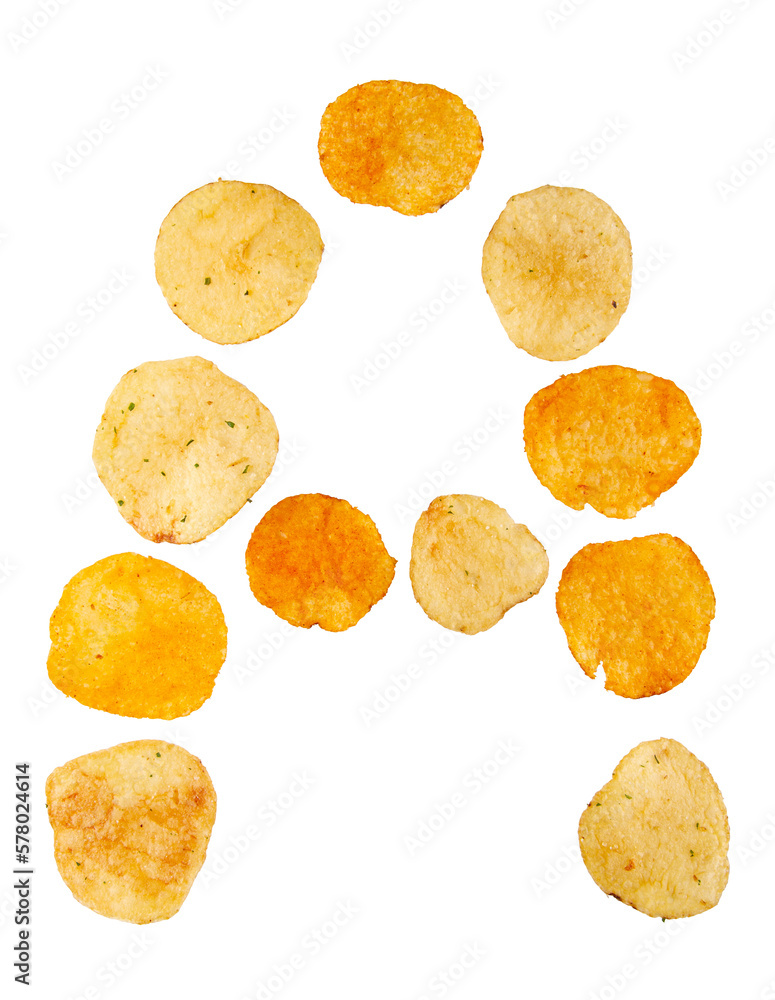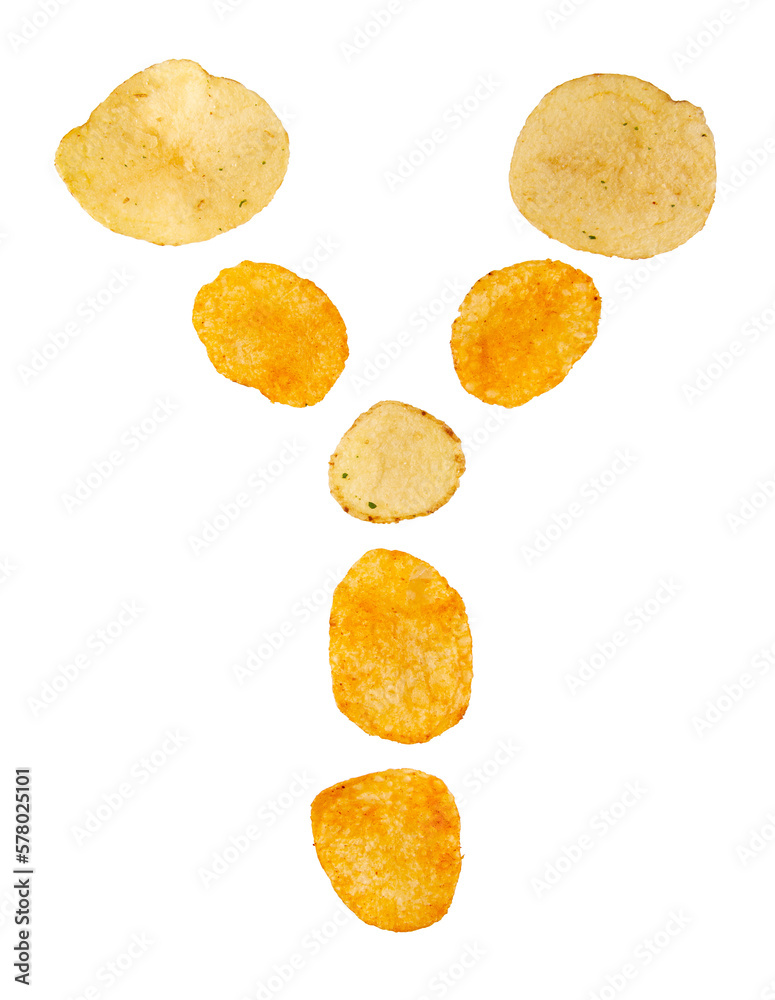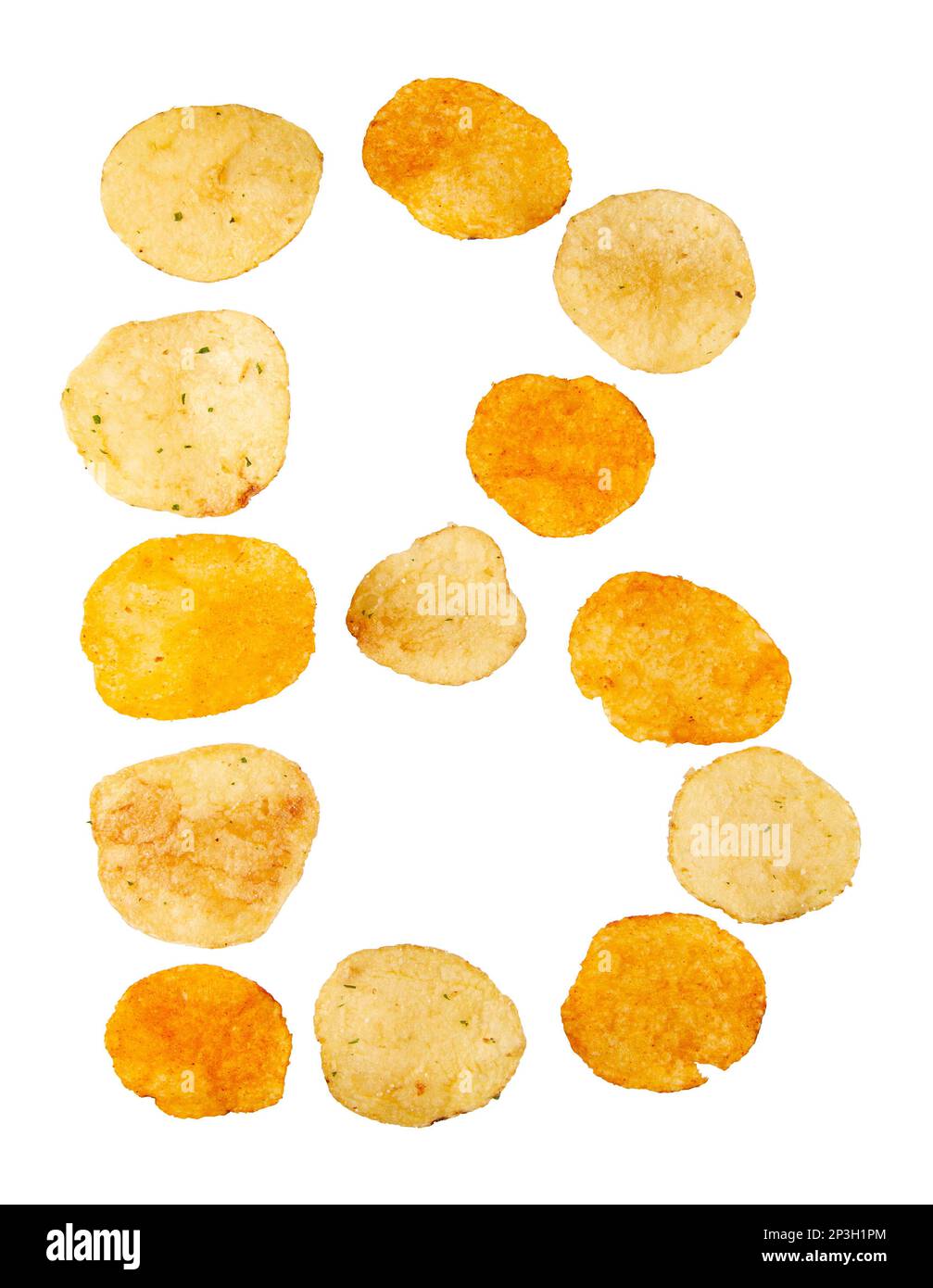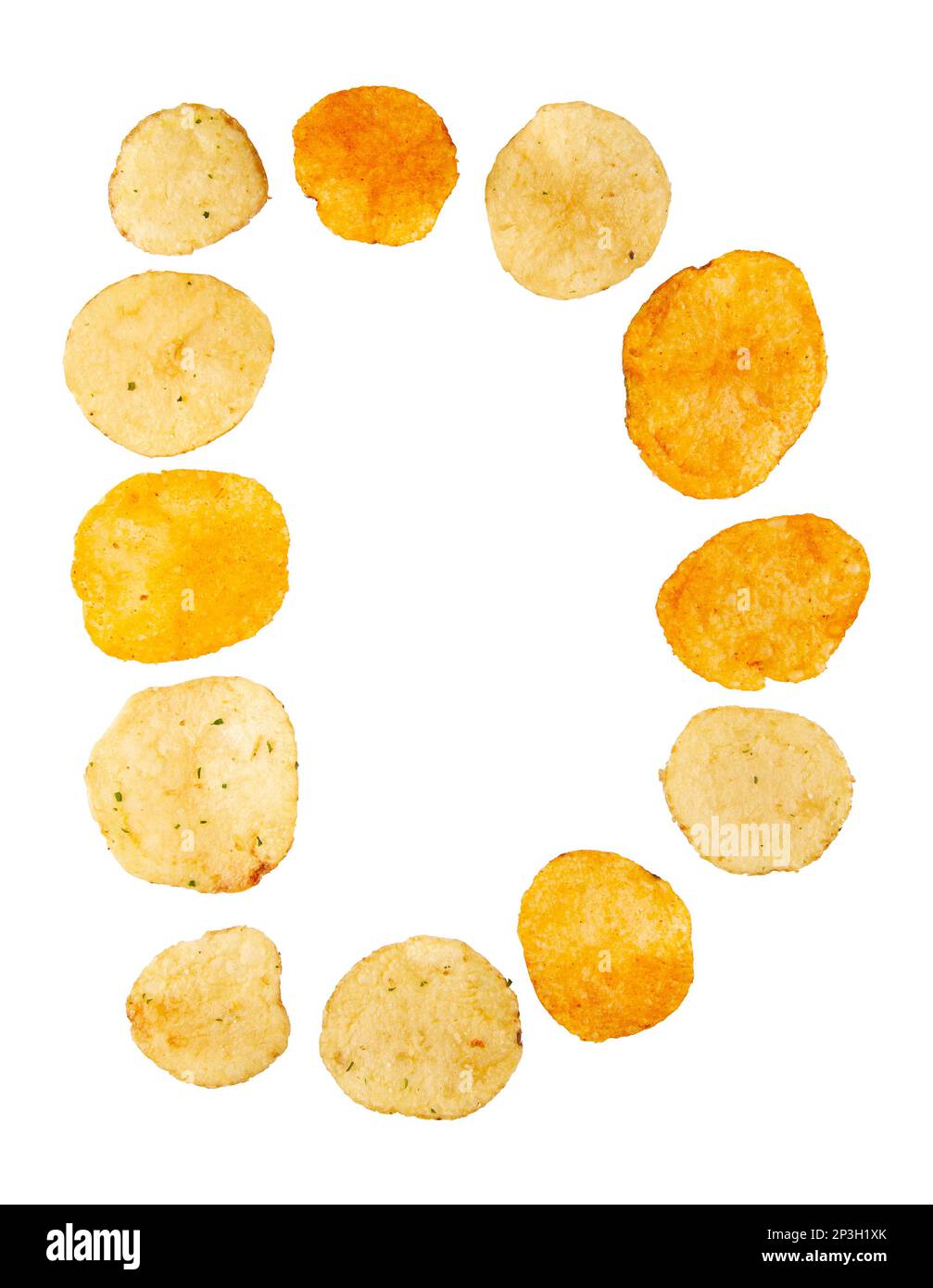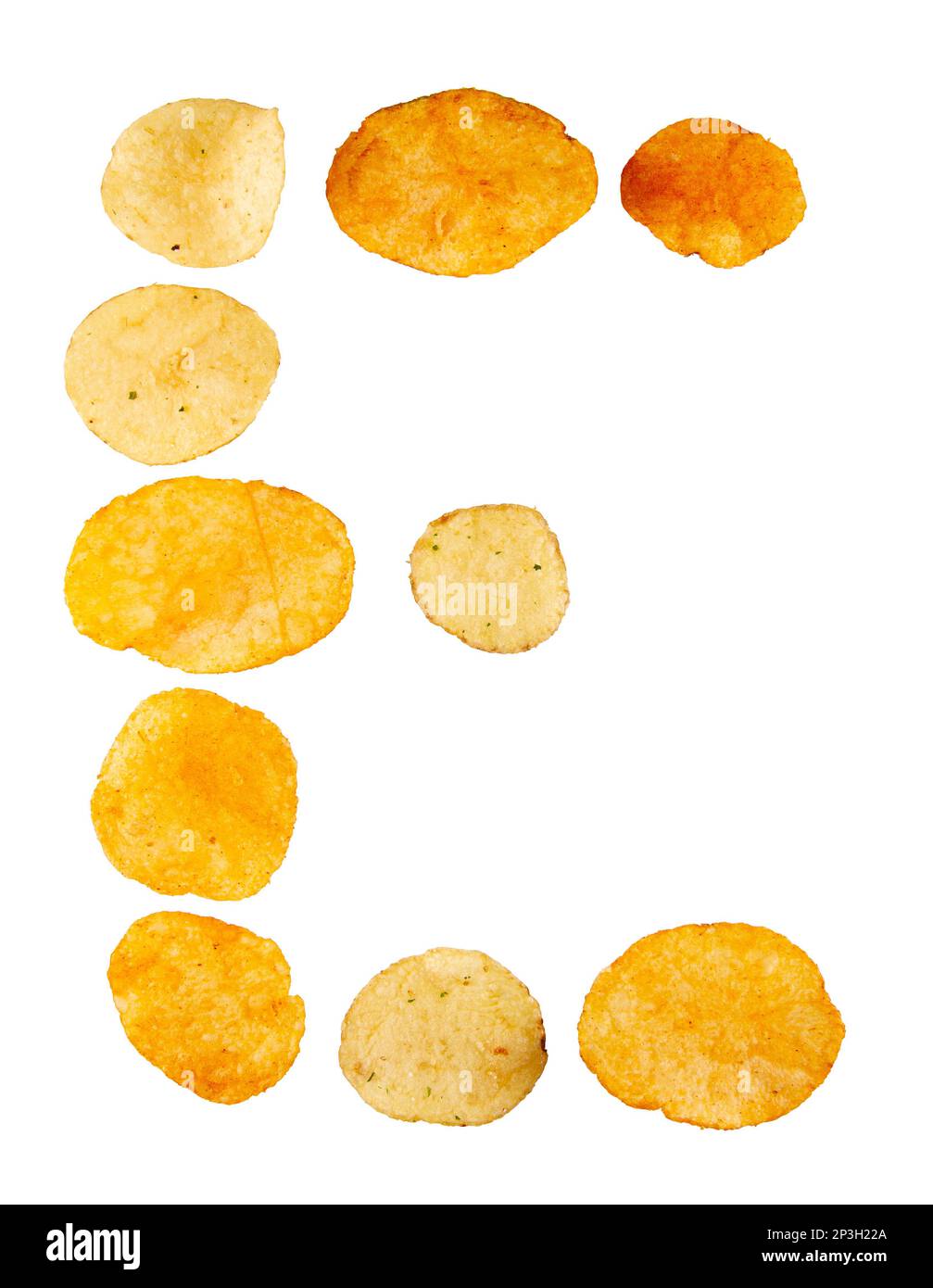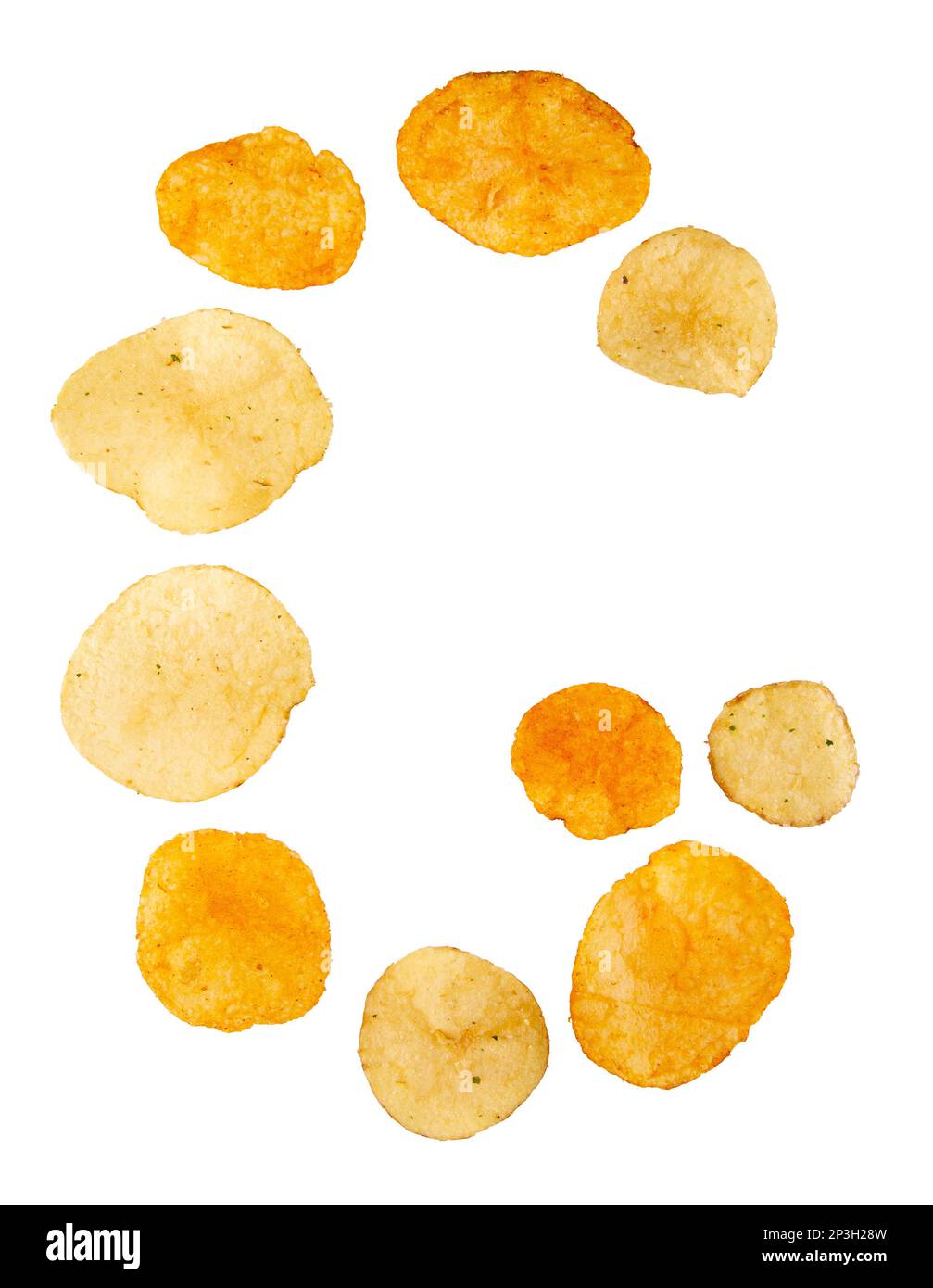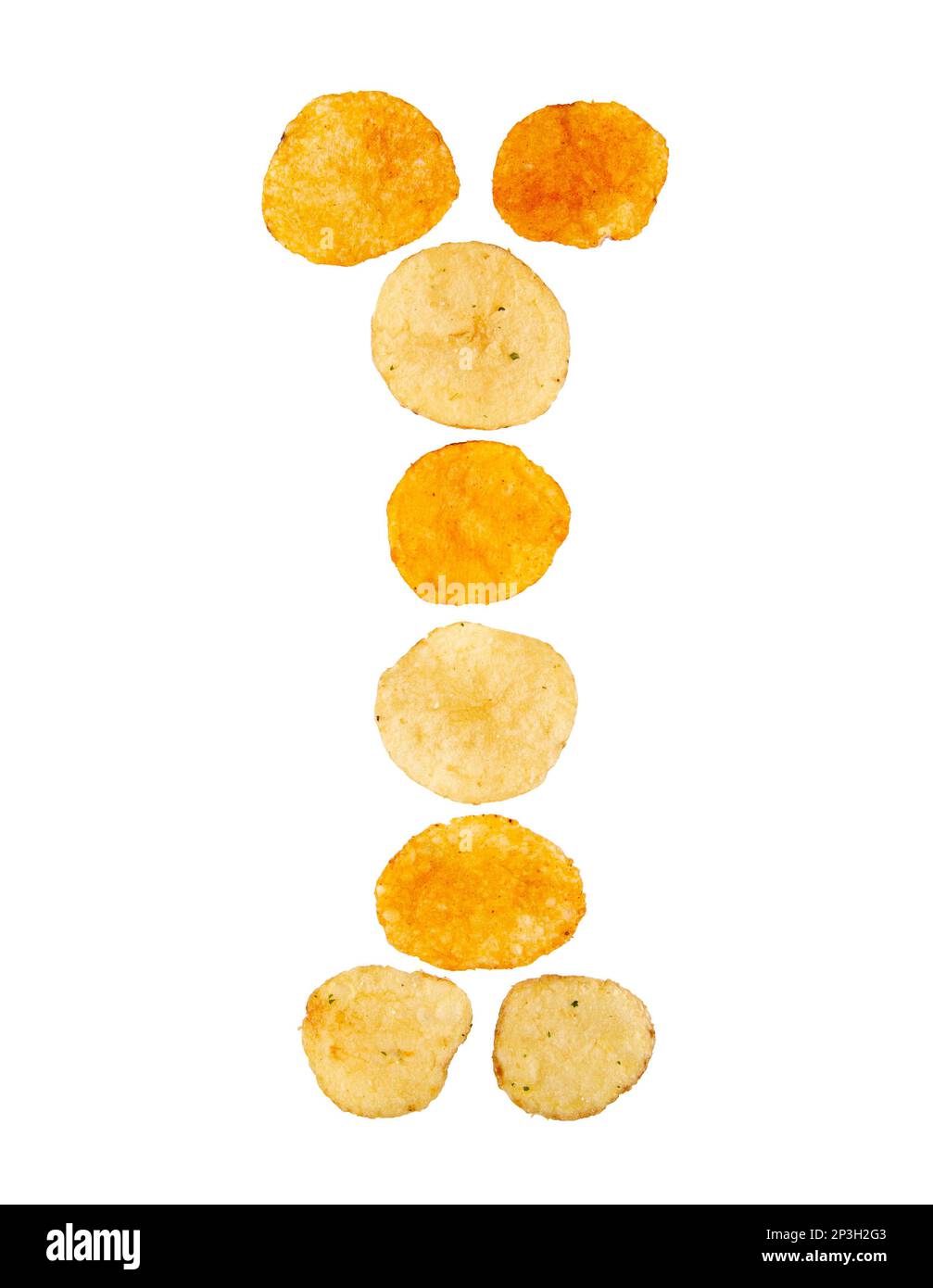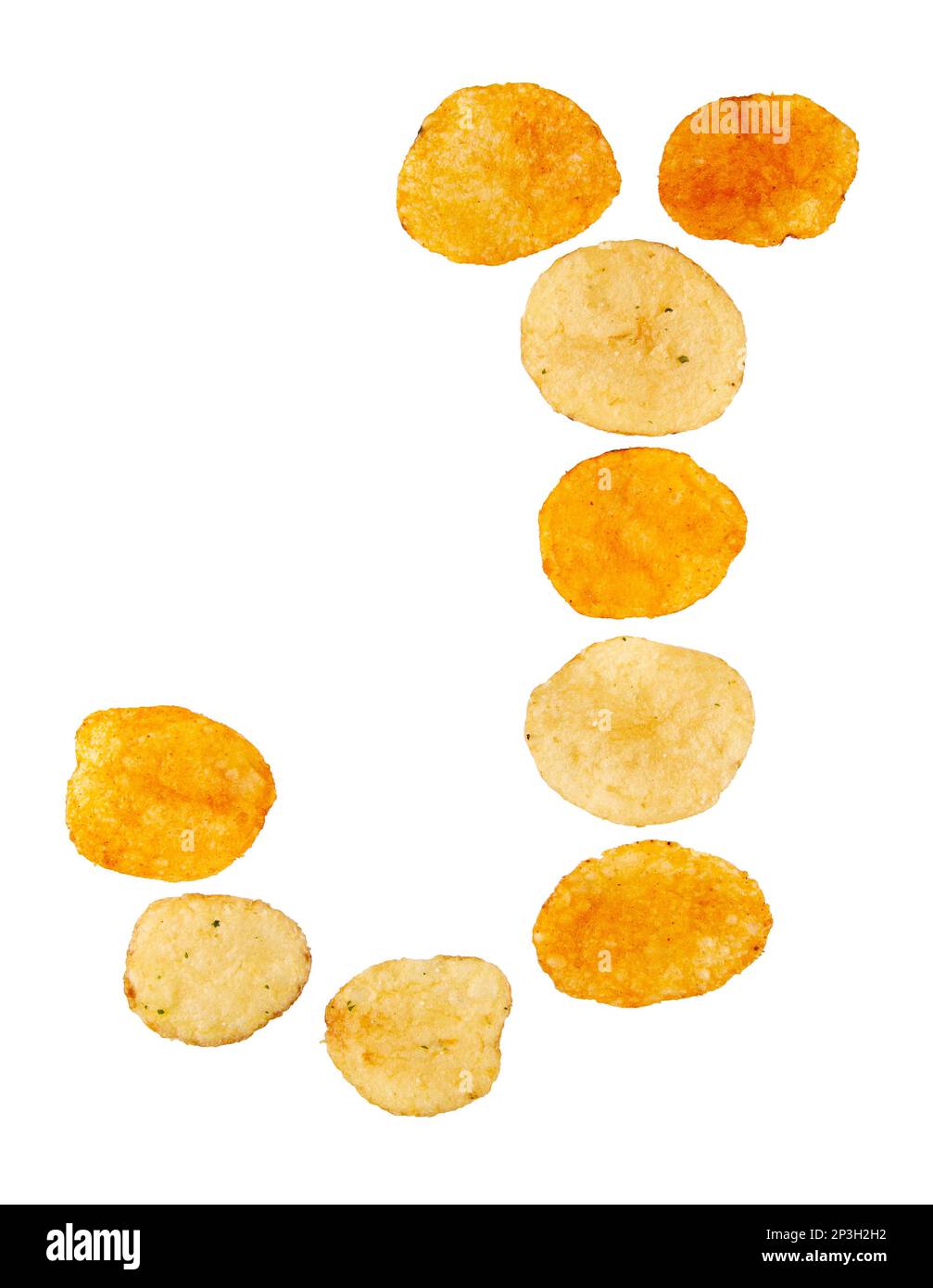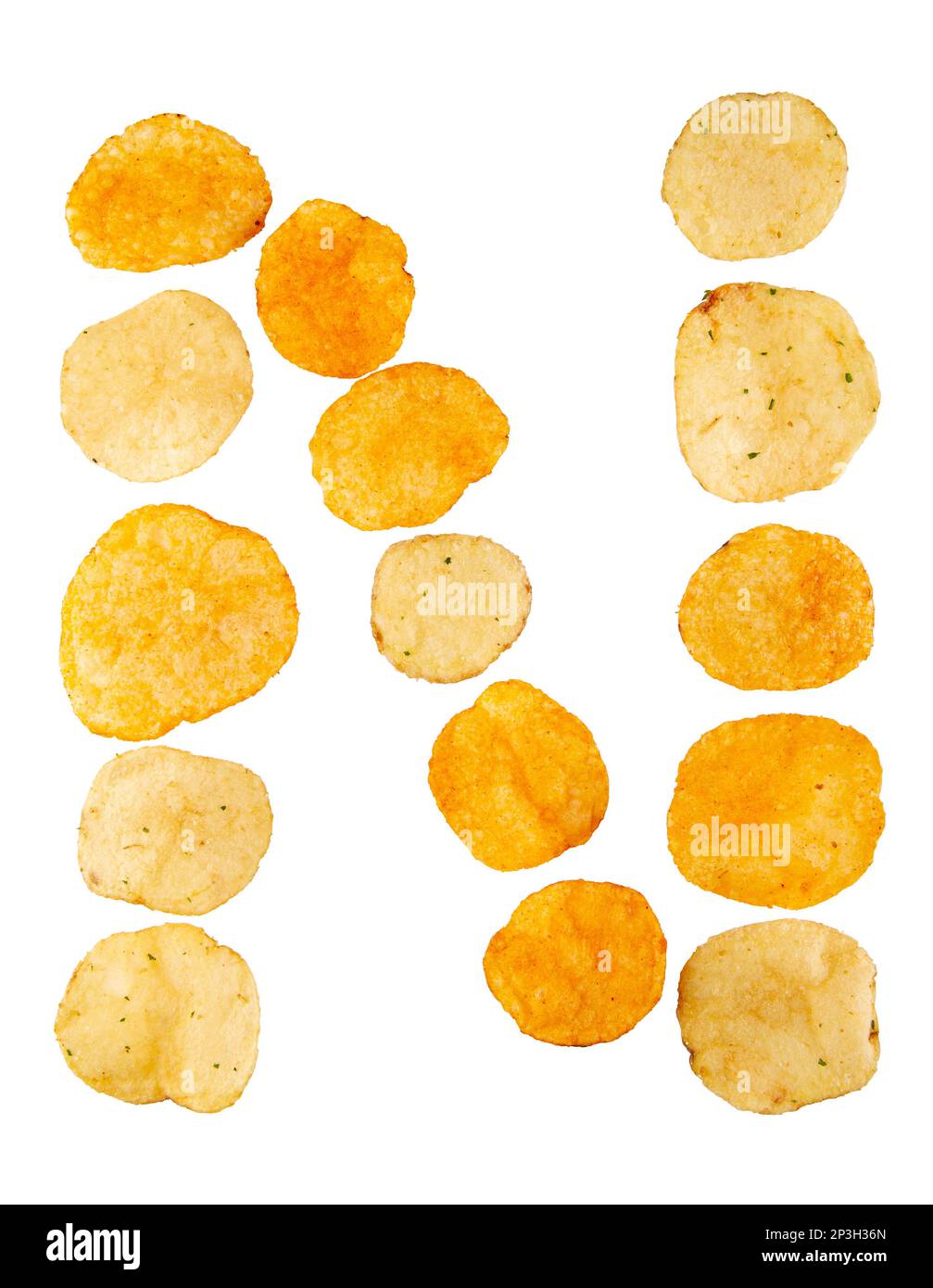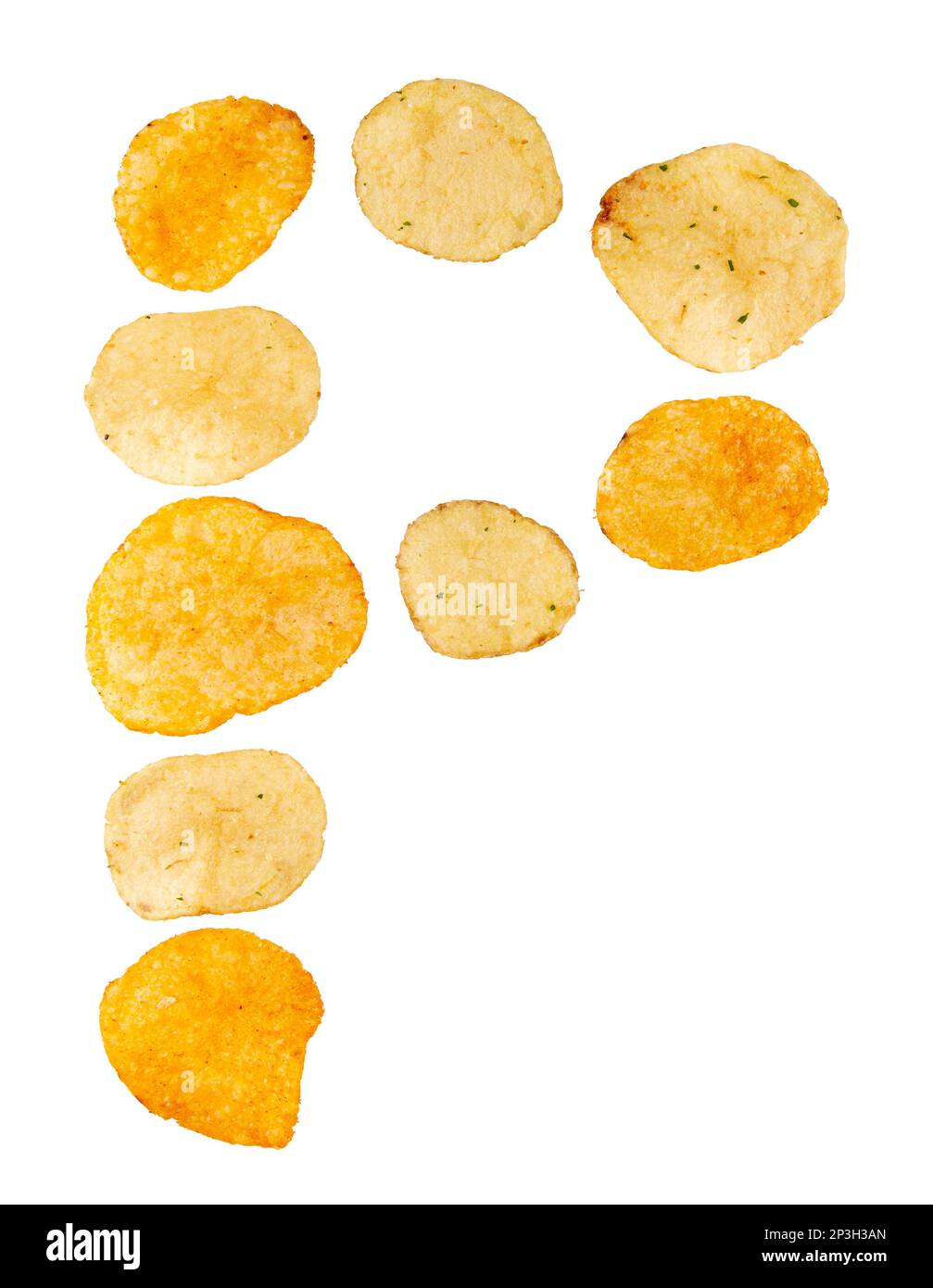
Potato Chip Font . Potato chips font | dafont.com. Each character looks like it could pop off the screen and into a bag of real potato chips. Click now to create a custom image with your own words that you can. The potato chips font contains 145 beautifully designed characters. Potato chips font download is available free from fontget. Perfect for awesome display, labeling,. Potato chips à by khurasan. It can also help to assist in delivering the message in your design. Potato chips is a free font for personal use created by khurasan. Whether you're designing for a food blog, snack packaging, or just want to add a lighthearted touch to your creations, this font captures the essence of everyone's favorite crunchy indulgence. Free download of potato chips font. It is of display font category and is named potato chips. ️ customize your own preview on ffonts.net to make sure it`s the.
Potato chips is a free font for personal use created by khurasan. The potato chips font contains 145 beautifully designed characters. ️ customize your own preview on ffonts.net to make sure it`s the. Each character looks like it could pop off the screen and into a bag of real potato chips. It is of display font category and is named potato chips. Potato chips à by khurasan. Free download of potato chips font. It can also help to assist in delivering the message in your design. Perfect for awesome display, labeling,. Whether you're designing for a food blog, snack packaging, or just want to add a lighthearted touch to your creations, this font captures the essence of everyone's favorite crunchy indulgence.
Potato Chip Font Potato chips is a free font for personal use created by khurasan. Potato chips font download is available free from fontget. Potato chips font | dafont.com. Perfect for awesome display, labeling,. ️ customize your own preview on ffonts.net to make sure it`s the. Potato chips is a free font for personal use created by khurasan. Free download of potato chips font. Potato chips à by khurasan. Each character looks like it could pop off the screen and into a bag of real potato chips. Whether you're designing for a food blog, snack packaging, or just want to add a lighthearted touch to your creations, this font captures the essence of everyone's favorite crunchy indulgence. It is of display font category and is named potato chips. It can also help to assist in delivering the message in your design. The potato chips font contains 145 beautifully designed characters. Click now to create a custom image with your own words that you can.
Potato Chips free font Potato Chip Font Perfect for awesome display, labeling,. Potato chips is a free font for personal use created by khurasan. ️ customize your own preview on ffonts.net to make sure it`s the. Free download of potato chips font. Potato chips à by khurasan. Each character looks like it could pop off the screen and into a bag of real potato chips. It is. Potato Chip Font.
Sweet Potato Chips Font by edwar.sp111 · Creative Fabrica Potato Chip Font Potato chips font | dafont.com. Each character looks like it could pop off the screen and into a bag of real potato chips. Potato chips is a free font for personal use created by khurasan. Potato chips à by khurasan. The potato chips font contains 145 beautifully designed characters. Free download of potato chips font. ️ customize your own preview. Potato Chip Font.
Potato chips Creative editable text effect.Elegant text style by Potato Chip Font The potato chips font contains 145 beautifully designed characters. Free download of potato chips font. Each character looks like it could pop off the screen and into a bag of real potato chips. Potato chips à by khurasan. Perfect for awesome display, labeling,. Potato chips is a free font for personal use created by khurasan. Potato chips font | dafont.com.. Potato Chip Font.
Potato Chip (407304) Regular Font Bundles Potato Chip Font Perfect for awesome display, labeling,. Potato chips à by khurasan. ️ customize your own preview on ffonts.net to make sure it`s the. Whether you're designing for a food blog, snack packaging, or just want to add a lighthearted touch to your creations, this font captures the essence of everyone's favorite crunchy indulgence. The potato chips font contains 145 beautifully designed. Potato Chip Font.
Letter D made of potato chips and isolated on white background. Food Potato Chip Font Click now to create a custom image with your own words that you can. Perfect for awesome display, labeling,. ️ customize your own preview on ffonts.net to make sure it`s the. Potato chips font download is available free from fontget. Potato chips à by khurasan. Potato chips font | dafont.com. It is of display font category and is named potato. Potato Chip Font.
Letter T made of potato chips and isolated on white background. Food Potato Chip Font Whether you're designing for a food blog, snack packaging, or just want to add a lighthearted touch to your creations, this font captures the essence of everyone's favorite crunchy indulgence. Perfect for awesome display, labeling,. Potato chips font | dafont.com. It can also help to assist in delivering the message in your design. Click now to create a custom image. Potato Chip Font.
Potato Chips Font Khurasan FontSpace Potato Chip Font Potato chips font download is available free from fontget. Perfect for awesome display, labeling,. Potato chips font | dafont.com. Free download of potato chips font. Each character looks like it could pop off the screen and into a bag of real potato chips. ️ customize your own preview on ffonts.net to make sure it`s the. Click now to create a. Potato Chip Font.
Letter M made of potato chips and isolated on white background. Food Potato Chip Font Potato chips is a free font for personal use created by khurasan. Perfect for awesome display, labeling,. Whether you're designing for a food blog, snack packaging, or just want to add a lighthearted touch to your creations, this font captures the essence of everyone's favorite crunchy indulgence. ️ customize your own preview on ffonts.net to make sure it`s the. Free. Potato Chip Font.
Letter Y made of potato chips and isolated on png transparent Potato Chip Font Click now to create a custom image with your own words that you can. Potato chips font | dafont.com. Each character looks like it could pop off the screen and into a bag of real potato chips. Free download of potato chips font. ️ customize your own preview on ffonts.net to make sure it`s the. Potato chips is a free. Potato Chip Font.